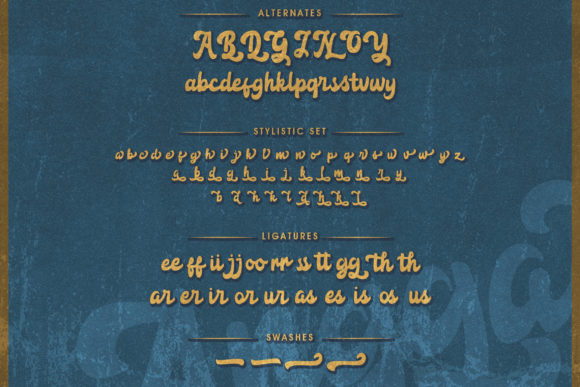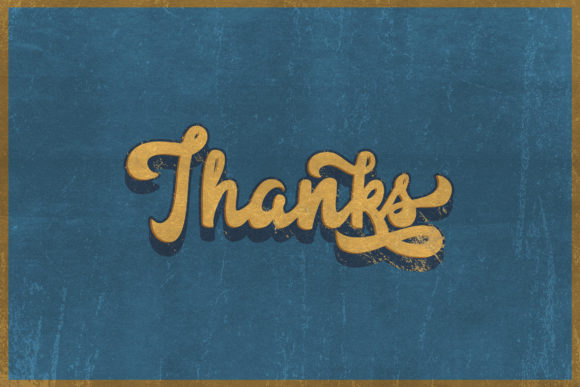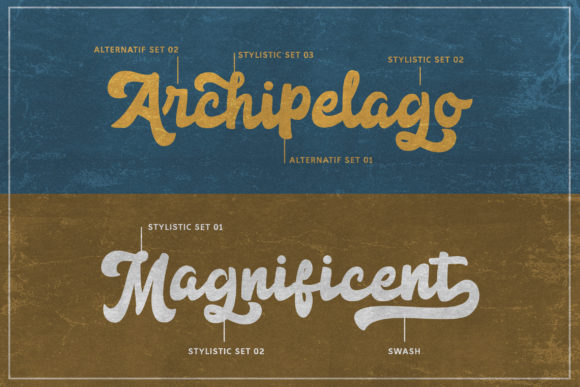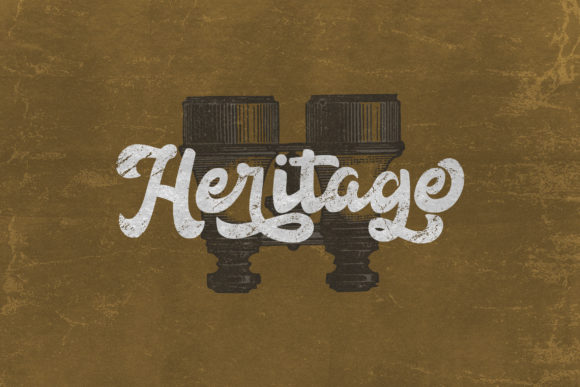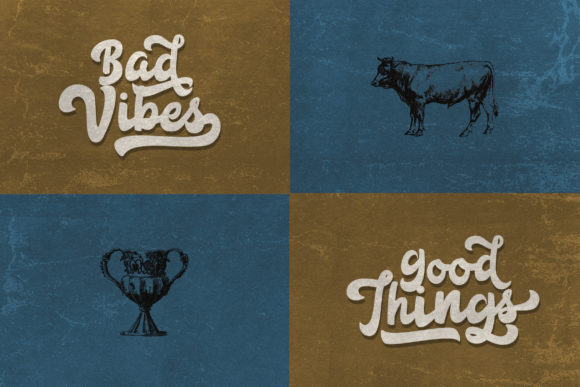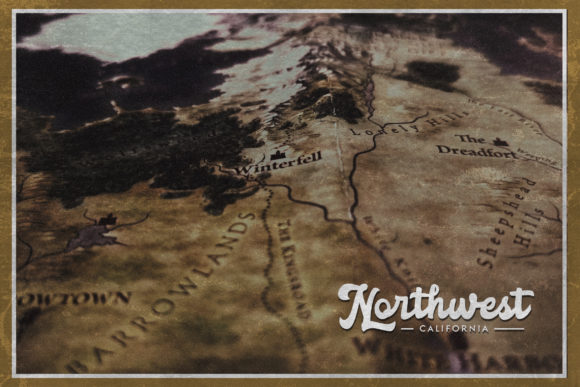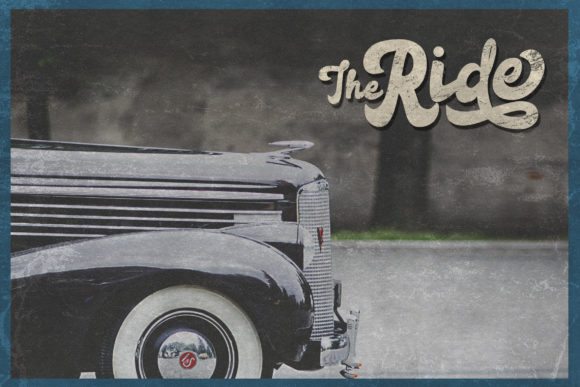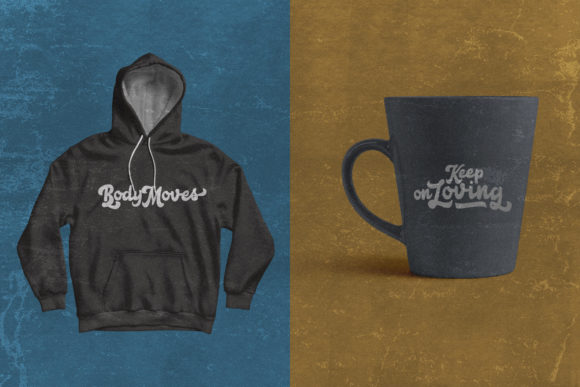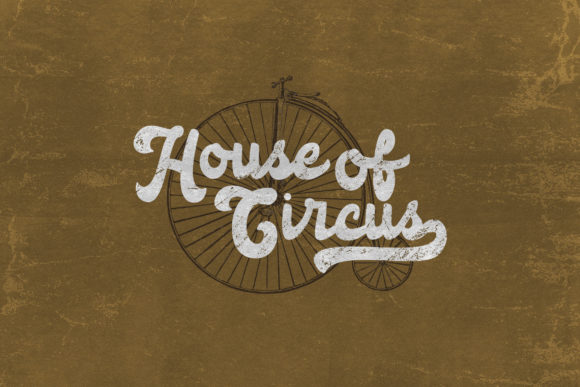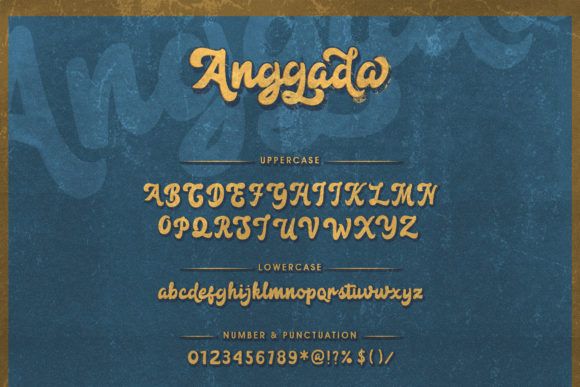
HomeScript FontsAnggada Font Script Fonts Anggada Font FacebookXPinterestWhatsApp Anggada Font Poster 2 Anggada Font Poster 3 Anggada Font Poster 4 Anggada Font Poster 5 Anggada Font Poster 6 Anggada Font Poster 7 Anggada Font Poster 8 Anggada Font Poster 9 Anggada Font Poster 10 Anggada Font Poster 11 About Anggada Font Anggada is a casual handwritten font with a cool vibe. It will turn any design idea into a true standout! DOWNLOAD ON CREATIVE FABRICAThis font is sold and delivered by Creative Fabrica. Font Canyon may earn a commission if you buy through this link. People also explored Sweetie Font Bakya Font Andreae Font Woliy Font The Chuns Font Anjani Script Font Yulista Sister Font Pars Font Laquittea Script 379 0 TagsAnggada Font Previous articleKamathara FontNext articleHarley Queen Font LEAVE A REPLY Cancel reply Comment: Please enter your comment! Name:* Please enter your name here Email:* You have entered an incorrect email address! Please enter your email address here Website: Save my name, email, and website in this browser for the next time I comment. Personal Use Free BD Algebra Personal Use Free Read more about this font Planning Personal Use Free Read more about this font Welliana Personal Use Free Read more about this font Wintersoul Personal Use Free Read more about this font BLOG Fonts That Capture the Spirit of New York City New York City is more than just a place—it’s an experience, a rhythm, a visual language... How to Install and Use Fonts on Windows, macOS, and Web Projects The 10 Best Handwriting Fonts to Add Personality to Your Designs Where to Buy American Fonts Online in 2024